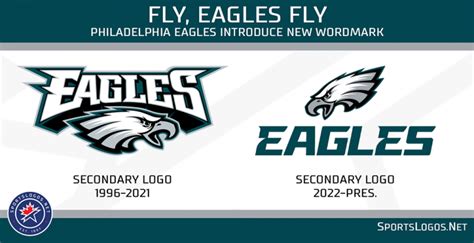
Eagles Font Change. The eagles have decided to tweak their look a bit by. The eagles introduce a new wordmark design for the team.
The eagles have decided to tweak their look a bit by. The eagles introduce a new wordmark design for the team. The philadelphia eagles introduced a new wordmark thursday, updating to a sleeker, slimmer and bolder. Jun 16, 2022 5:39 pm edt.
The eagles have decided to tweak their look a bit by. Jun 16, 2022 5:39 pm edt. The philadelphia eagles introduced a new wordmark thursday, updating to a sleeker, slimmer and bolder. The eagles have decided to tweak their look a bit by. The eagles introduce a new wordmark design for the team.